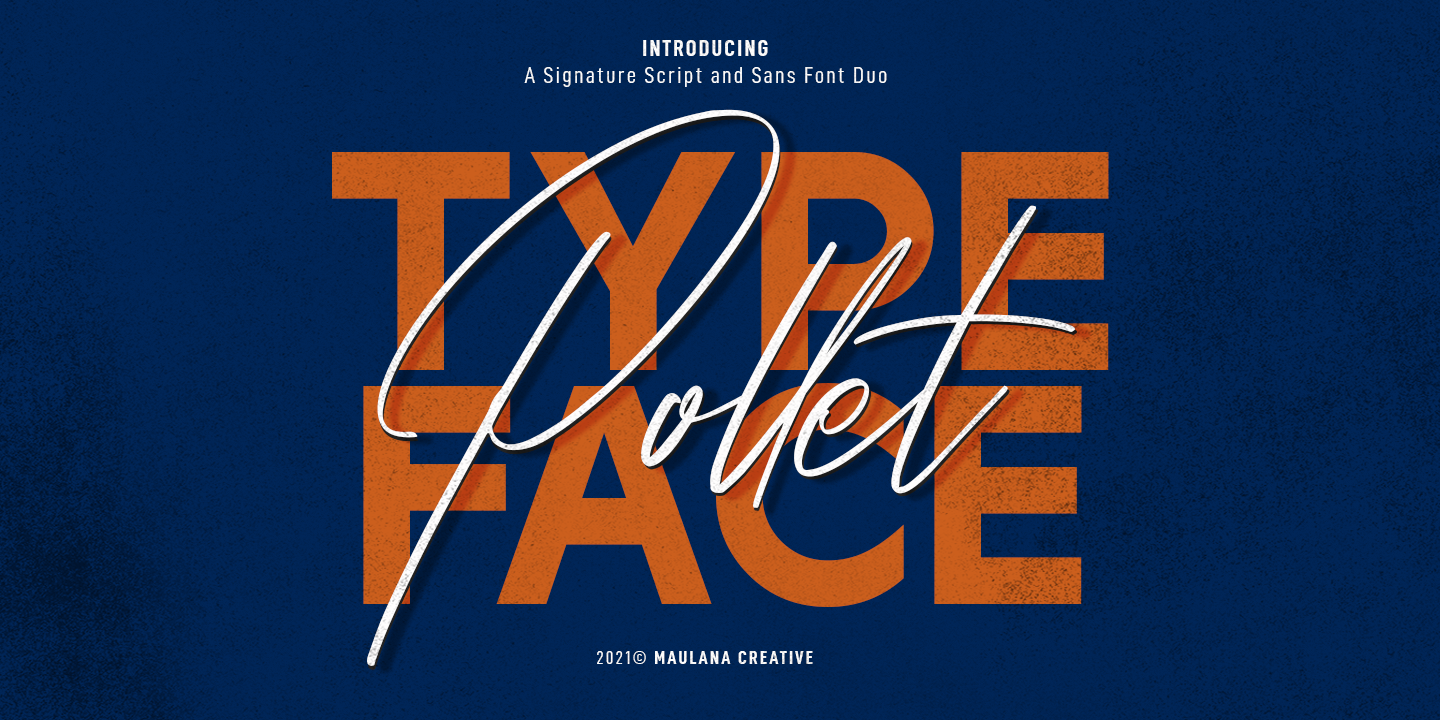
Pollet Signature Script Sans Font is perfect for personal brand consulting, boutique business identity systems, artisan signature product lines, custom design service branding, handcrafted jewelry marketing, bespoke tailoring communications, personalized gift services, and exclusive creative studio materials. This sophisticated dual-purpose typeface excels in applications where personal authenticity, signature style, and professional versatility are essential for creating distinctive brand experiences that connect with audiences who appreciate both handcrafted personality and clean professional presentation.
What makes Pollet Signature Script Sans Font so exciting is its masterful balance between intimate signature authenticity and professional sans serif clarity that perfectly captures the essence of personal branding excellence and signature style sophistication. The script component features natural, handwritten characteristics with authentic pen flow, while the sans serif provides clean, professional support for extended text applications. This dual character conveys personal authenticity, professional competence, and signature distinction - essential qualities for brands serving creative professionals, boutique businesses, and discerning clientele who value both personal touch and professional presentation in their communications.
The Pollet Font System includes comprehensive script and sans serif variations with multiple weights and stylistic alternates that provide complete branding flexibility. The signature script offers natural pen variations and authentic flourishes perfect for logos and headers, while the coordinated sans serif family ensures optimal readability and professional presentation for body text and supporting materials across all brand applications.
Whether you're developing personal brand systems, creating boutique business identities, or designing signature product campaigns, Pollet Signature Script Sans Font Free Download provides the authentic versatility your project requires. The font's dual character makes it particularly effective for brands targeting creative professionals and sophisticated audiences who appreciate personal authenticity combined with professional presentation and signature style distinction.
Sign with authentic distinction using Pollet Signature Script Sans Font and craft signature brand communications with typography that perfectly balances personal handwritten charm with professional sans serif functionality.